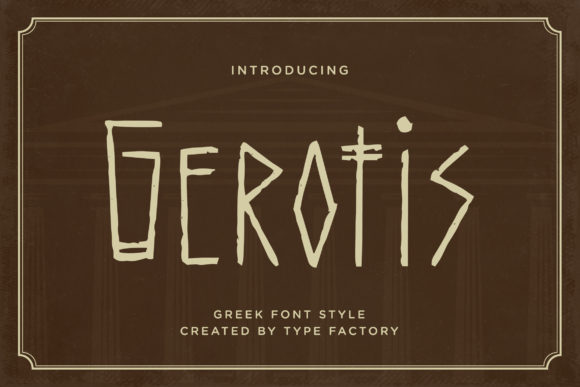
Gerotis Font: A Timeless Display Font Inspired by Ancient Greek Writing
Are you looking for a font that can add a touch of elegance and sophistication to your design projects? Look no further than the Gerotis font, a stunning display font inspired by the ancient writing systems of Greece. In this article, we’ll take a closer look at the Gerotis font, its features, and how you can use it to elevate your designs.
What is Gerotis Font?
Gerotis is a display font that draws inspiration from the ancient Greek writing systems. Its unique design makes it perfect for creating eye-catching posters, book covers, flyers, invitations, and more. The font’s classic and timeless look is sure to add a touch of sophistication to any design project.
Key Features of Gerotis Font
- Ancient Greek Inspiration: Gerotis font is inspired by the ancient Greek writing systems, giving it a unique and classic look.
- Display Font: Gerotis is a display font, making it perfect for headlines, titles, and other design elements that need to stand out.
- High Versatility: Gerotis font can be used on a wide range of design projects, from posters and book covers to flyers and invitations.
- Easy to Read: Despite its ornate design, Gerotis font is easy to read, making it perfect for body text and other design elements.
How to Use Gerotis Font in Your Designs
Gerotis font is a versatile font that can be used on a wide range of design projects. Here are a few ideas to get you started:
- Posters: Use Gerotis font to create eye-catching posters for events, promotions, and more.
- Book Covers: Add a touch of elegance to your book covers with Gerotis font.
- Flyers: Use Gerotis font to create stunning flyers for events, businesses, and more.
- Invitations: Add a touch of sophistication to your invitations with Gerotis font.
Benefits of Using Gerotis Font
There are many benefits to using Gerotis font in your designs. Here are a few:
- Unique Look: Gerotis font has a unique and classic look that will set your designs apart from the rest.
- High Readability: Despite its ornate design, Gerotis font is easy to read, making it perfect for body text and other design elements.
- Versatility: Gerotis font can be used on a wide range of design projects, from posters and book covers to flyers and invitations.
- Time-Saving: With Gerotis font, you can create stunning designs in no time, saving you time and effort.
Tips and Tricks for Using Gerotis Font
Here are a few tips and tricks to help you get the most out of Gerotis font:
- Use it as a Headline Font: Gerotis font is perfect for headlines and titles, so use it to create eye-catching design elements.
- Experiment with Colors: Gerotis font looks great in a wide range of colors, so don’t be afraid to experiment and find the perfect color for your design.
- Pair it with Other Fonts: Gerotis font pairs well with a wide range of other fonts, so don’t be afraid to experiment and find the perfect combination for your design.
In conclusion, Gerotis font is a stunning display font inspired by ancient Greek writing systems. Its unique design makes it perfect for creating eye-catching posters, book covers, flyers, invitations, and more. With its high versatility, ease of use, and timeless look, Gerotis font is a great addition to any design project.
- What is Gerotis font?: Gerotis font is a display font inspired by ancient Greek writing systems.
- What is Gerotis font used for?: Gerotis font is perfect for creating eye-catching posters, book covers, flyers, invitations, and more.
- Is Gerotis font easy to read?: Yes, despite its ornate design, Gerotis font is easy to read.